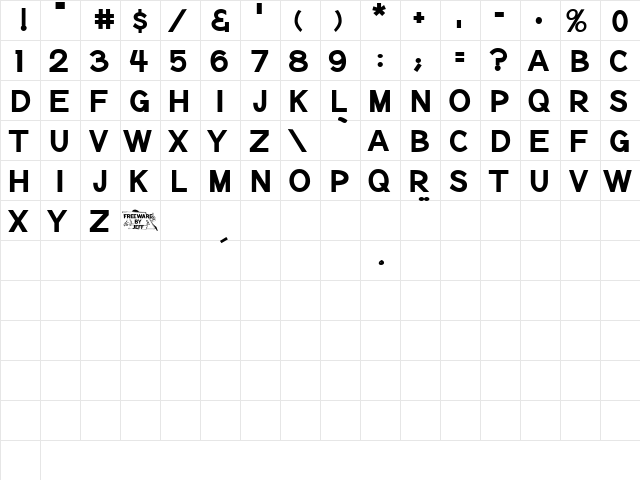
Notation Bold JL Regular
Design Context for Notation Bold JL Typeface
Notation Bold JL offers clean, dependable letterforms without strong stylistic allegiance, making it a practical choice for designers who need flexibility. Its bold stroke weight gives it real presence on the page.